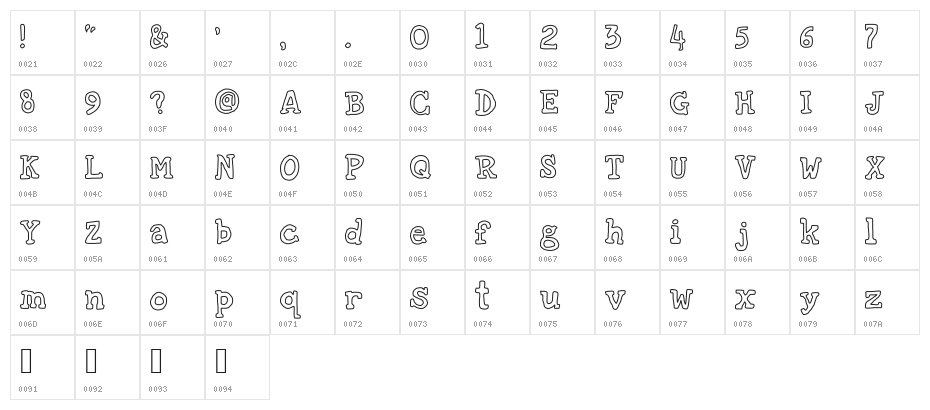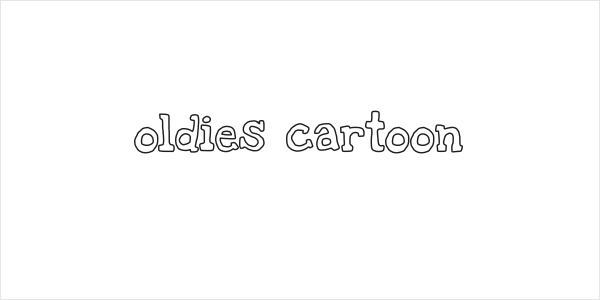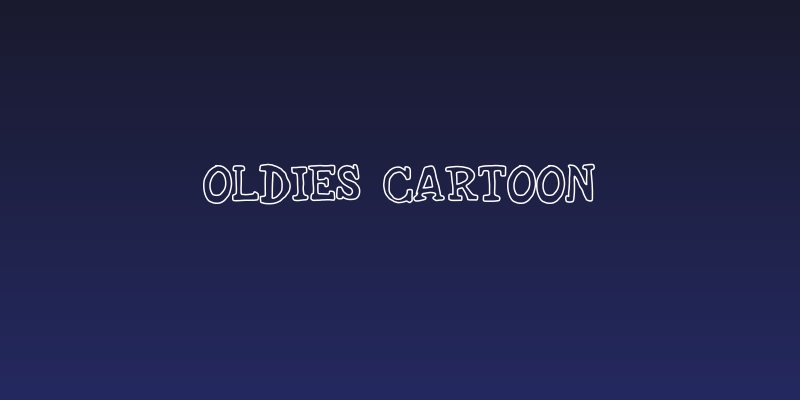
oldies cartoon Font
oldies cartoon Description
This playful and whimsical font features a hand-drawn, cartoonish style that evokes a sense of nostalgia and fun. The letters are outlined with a bold, uneven stroke, giving them a lively and animated appearance. Each character has a unique, slightly irregular shape, adding to the font's charm and personality. The uppercase and lowercase letters maintain a consistent style, while the numbers and special characters complement the overall design. This font is perfect for projects that require a touch of humor and creativity, making it ideal for children's books, comic strips, and playful branding.
| Overall Style | Vintage, Playful |
| Proposed Projects | Children's books, comic strips, playful branding, greeting cards, and party invitations. |